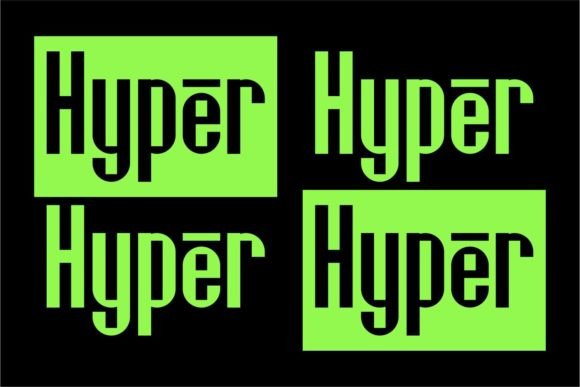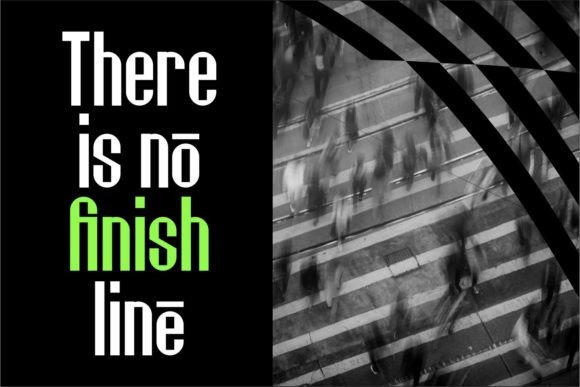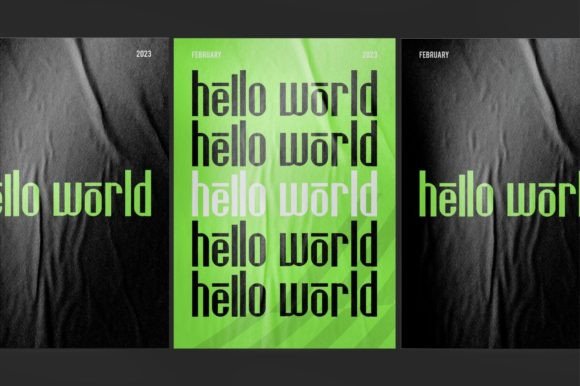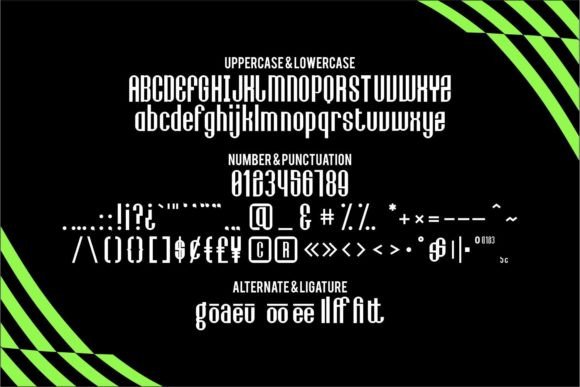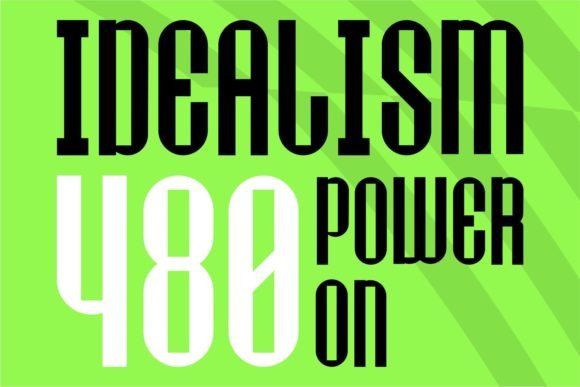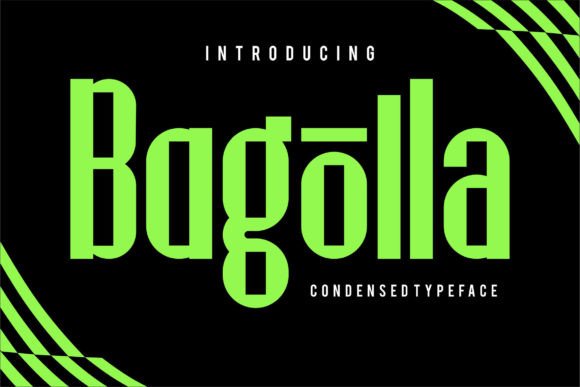
Bogolla Font: Elevate Your Designs with a Compact and Modern Typeface
In the world of typography, finding the right font can make all the difference in the success of a design project. For designers and crafters looking for a compact and straightforward typeface, Bogolla Font is an excellent choice. Specifically, Bogolla Condensed Font stands out for its sleek and modern aesthetic, making it perfect for projects where space is limited or a clean look is desired.
The Characteristics of Bogolla Condensed Font
Bogolla Condensed Font is a compact and straightforward typeface. With a condensed style, it keeps things neat and tidy. This feature is particularly beneficial for designers working on projects with limited space, such as brochures, posters, or digital interfaces. The condensed style allows for more information to be presented in a smaller area without compromising readability.
One of the key advantages of Bogolla Condensed Font is its clean and modern look. The font’s sleek lines and minimalist design make it an excellent choice for designers aiming to convey a sense of sophistication and elegance in their work. Whether it’s for a branding project, website design, or print materials, Bogolla Condensed Font can add a touch of sleek simplicity that elevates the overall design.
Benefits of Using Bogolla Condensed Font
There are several benefits to using Bogolla Condensed Font in design projects:
• Space Efficiency: The condensed style of Bogolla Font makes it ideal for projects where space is at a premium. It allows designers to include more content without cluttering the layout.
• Modern Aesthetic: The clean and straightforward design of Bogolla Condensed Font gives projects a modern and contemporary look, which is perfect for brands and designers aiming to appear current and trendy.
• Versatility: Bogolla Condensed Font can be used across various design projects, from digital interfaces and websites to print materials like brochures and posters.
• Readability: Despite its condensed style, Bogolla Font maintains a high level of readability, ensuring that the content is easily accessible to the audience.
How to Use Bogolla Condensed Font Effectively
To make the most of Bogolla Condensed Font, consider the following tips:
• Pair with Complementary Fonts: For maximum impact, pair Bogolla Condensed Font with complementary fonts that add contrast and hierarchy to the design.
• Use for Headings and Subheadings: The clean and modern look of Bogolla Condensed Font makes it particularly suitable for headings and subheadings, where it can grab attention and guide the reader through the content.
• Adjust Font Sizes: Experiment with different font sizes to create visual hierarchy and emphasize key information.
• Consider Line Spacing: Ensure adequate line spacing to maintain readability, especially when using the font for longer blocks of text.
Who Can Benefit from Bogolla Condensed Font?
Bogolla Condensed Font is a versatile typeface that can benefit a wide range of designers and crafters, including:
• Graphic Designers: Looking for a modern and clean font for branding, advertising, and print materials.
• Web Designers: Needing a compact and readable font for digital interfaces and websites.
• Artists and Crafters: Seeking a straightforward and elegant typeface for handmade projects, such as journals, planners, and crafts.
Bogolla Condensed Font offers a unique combination of compactness, cleanliness, and modernity, making it an excellent choice for designers and crafters looking to elevate their projects. Its versatility, readability, and sleek aesthetic ensure that it can be effectively used across a variety of applications. By incorporating Bogolla Condensed Font into their designs, professionals can achieve a crisp and efficient typographic solution that adds a touch of sleek simplicity to their work.